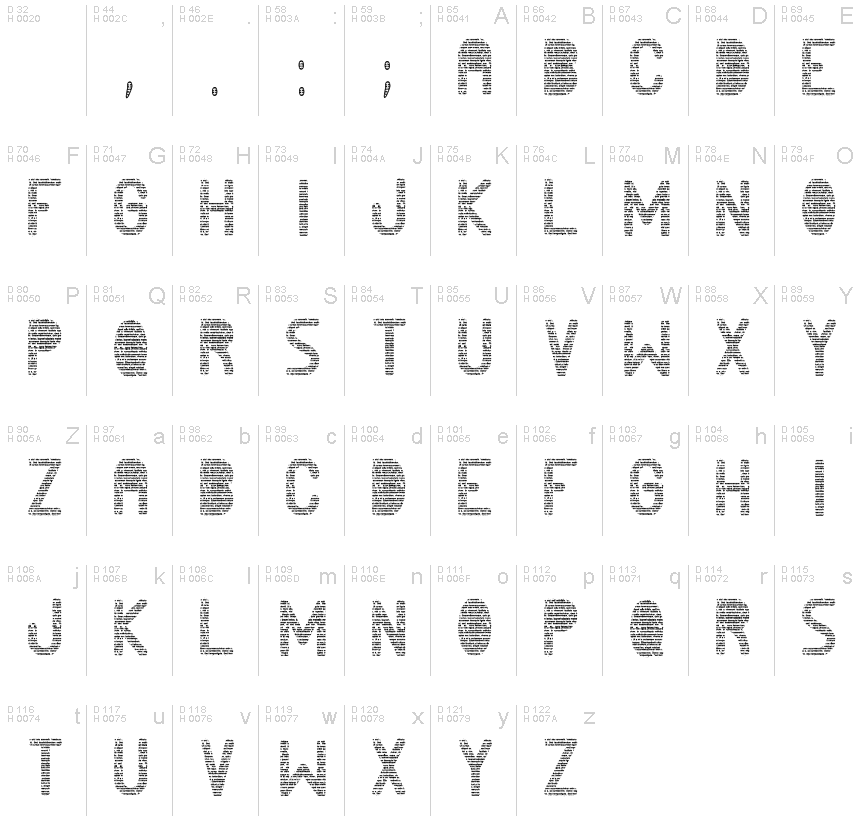
News papers st
News Papers st is a captivating display font crafted by Southype. Its decorative style features striking letterforms reminiscent of retro newspaper mastheads, exuding a distinct vintage charm. The font's bold, angular strokes and playful character shapes lend it an eye-catching, attention-grabbing presence.
This font excels in attention-grabbing headlines, impactful poster designs, and vintage-inspired branding. Its versatility extends to a range of applications, from editorial layouts to packaging and advertising campaigns, where its unique aesthetic can elevate the overall visual impact.